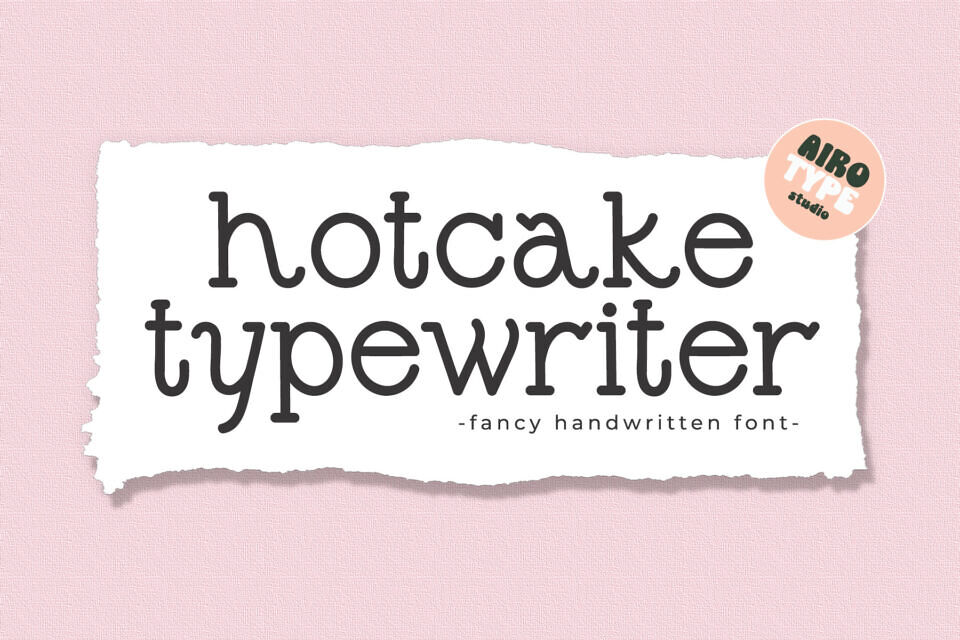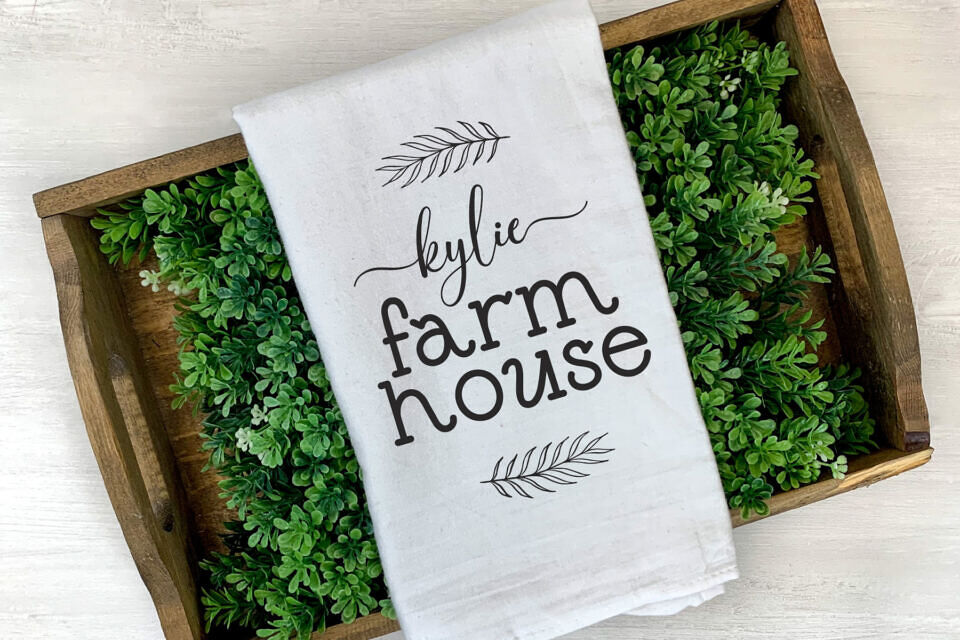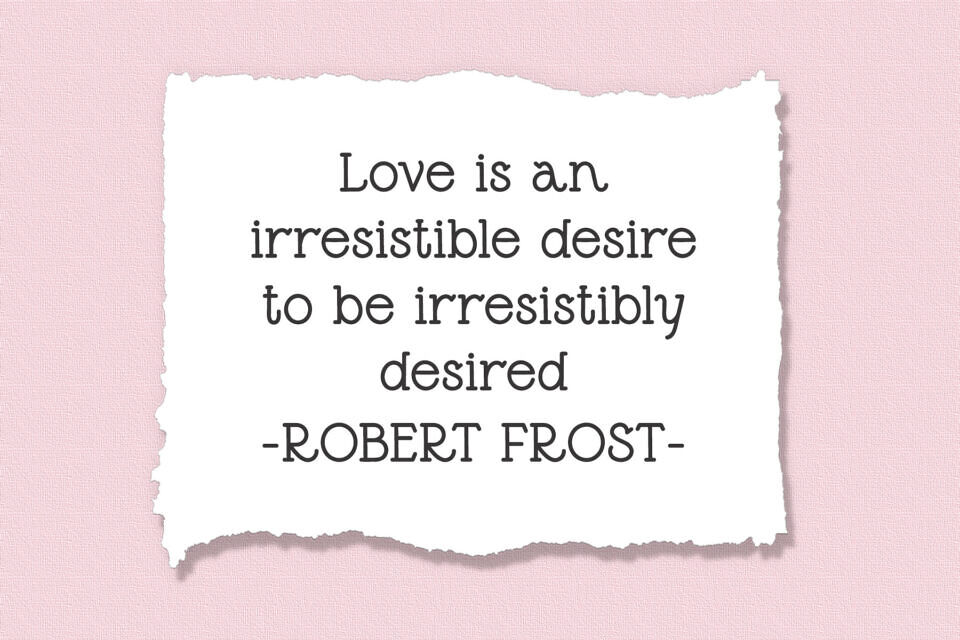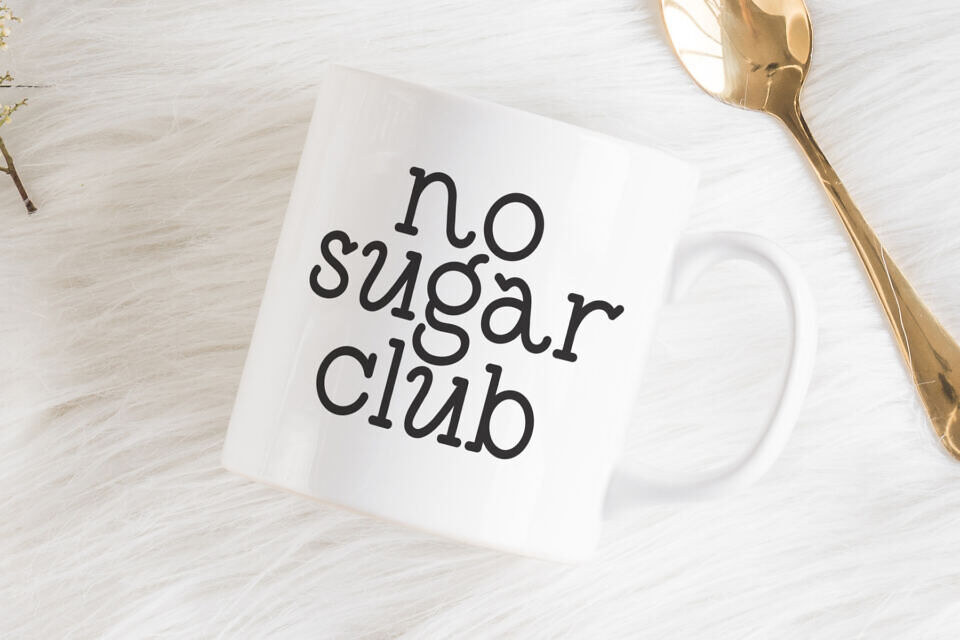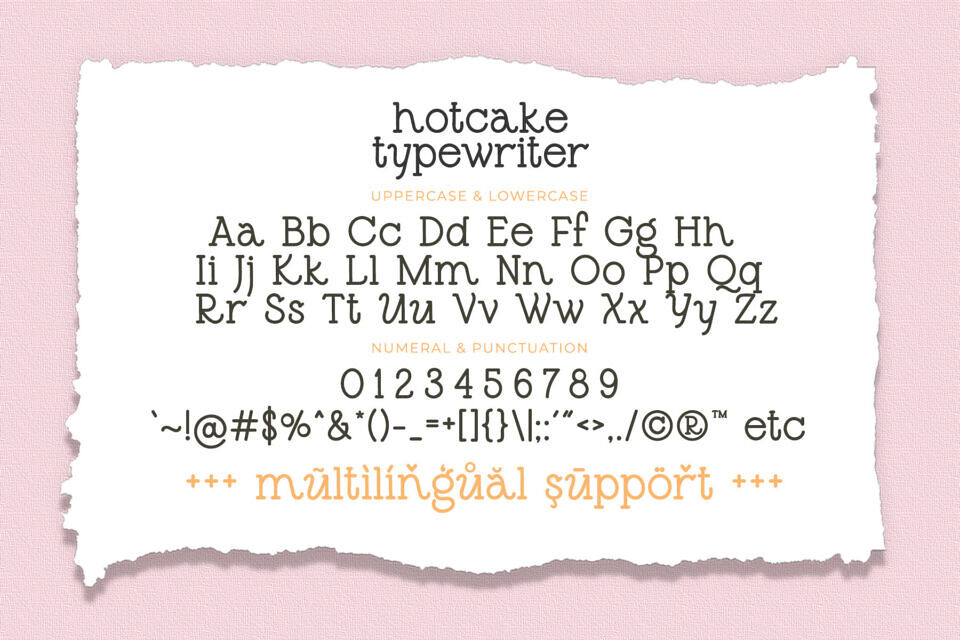
Hotcake Typewriter is a charming monoline font with a vintage twist. Its playful and casual style makes it perfect for a variety of projects, including t-shirt designs, crafts, stickers, and notes. Its quirky vibe adds a touch of fun to any creation, making it a great choice for sublimation and other creative endeavors.